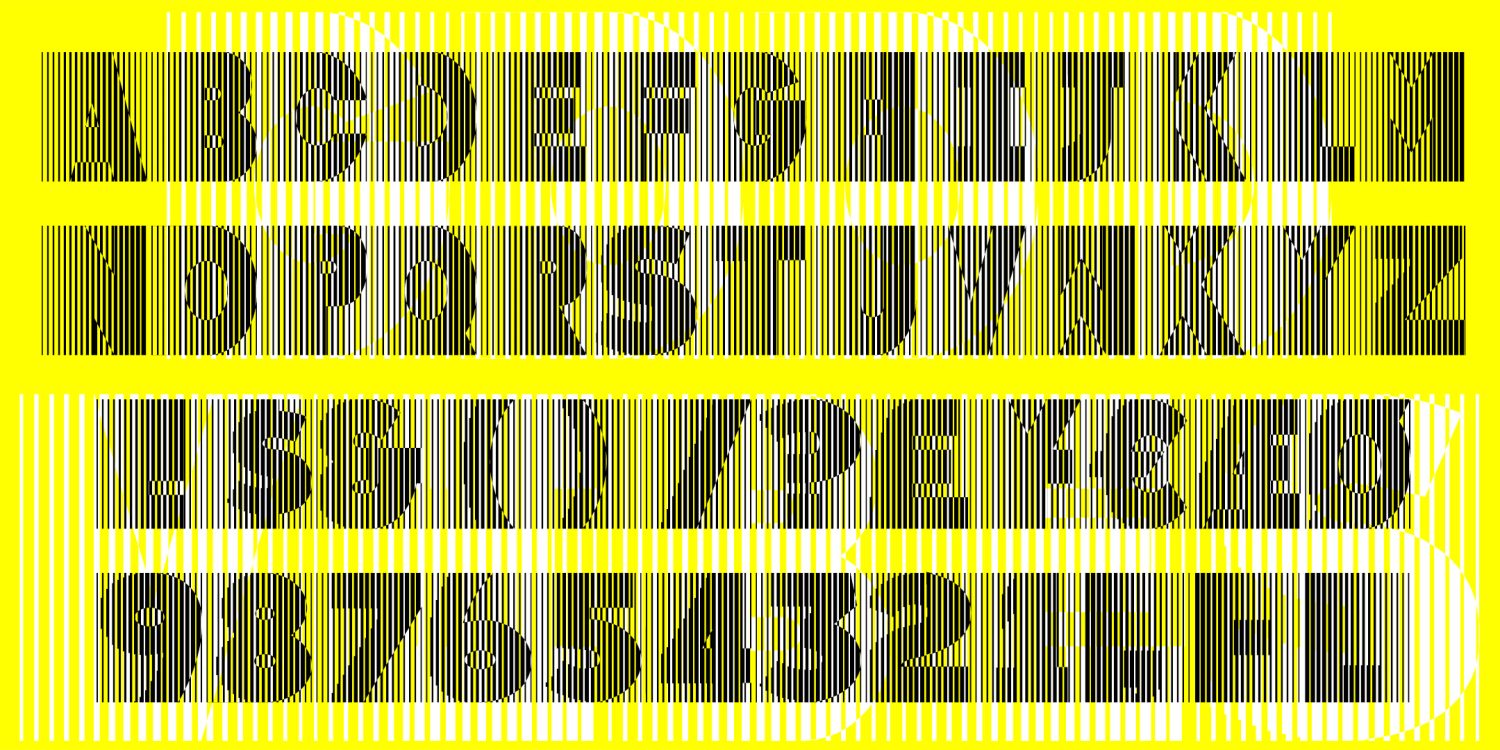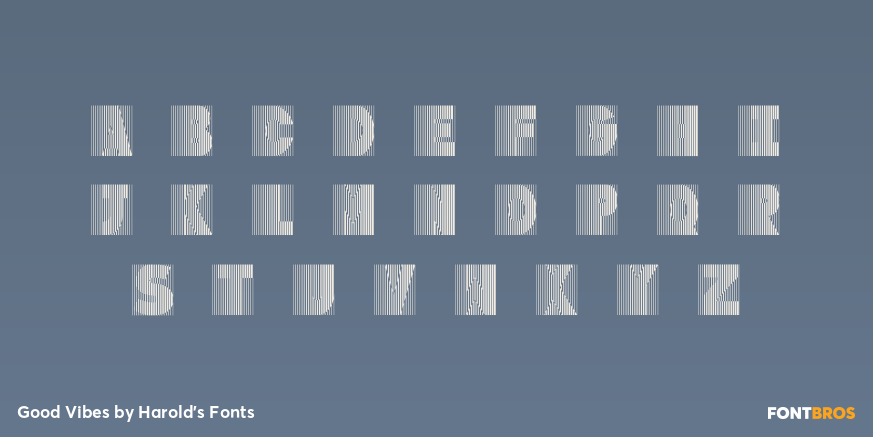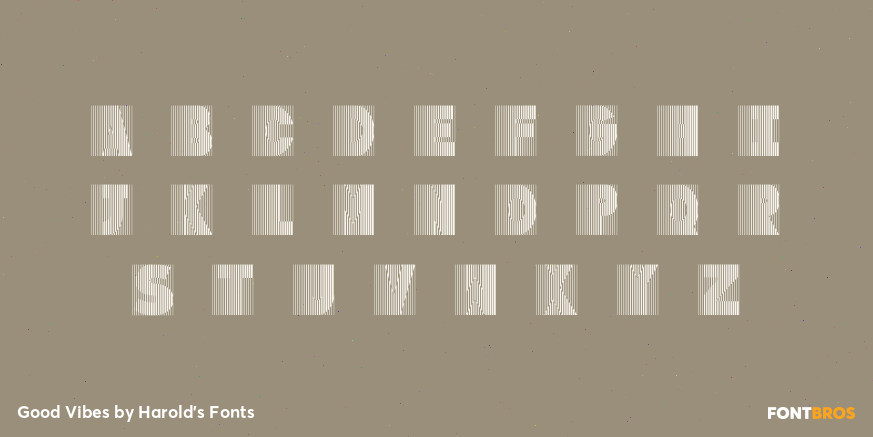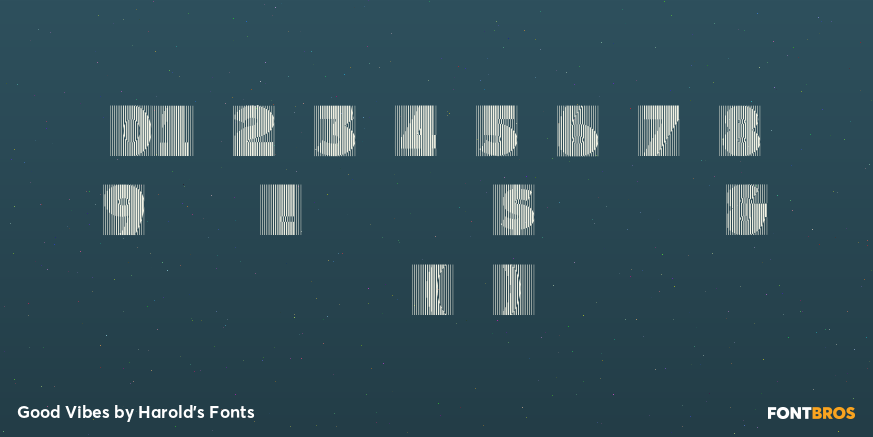
Good Vibes
Font Family by Harold's Fonts
GOOD VIBES is a great example of Op Art, It was inspired by a “lost” analog font from 1973 designed by Trevor Hatchett